Outline fonts are easy to spot. As the name suggests, the outline font features a character design that consists only of an outline with no fill. This font is widely used to create attractive titles and headlines. They are also used in logo designs and stationery as well. This font is often used to become the main headline in a flyer, poster, or greeting card because this font can attract readers’ attention. Here we recommend some outline fonts that you might be able to use for your project.
1. Playbook Font Family
This type of family contains 3 fonts: Playbook Outline, Playbook Fill, and Playbook Regular. You can use this font for creative headlines and titles.
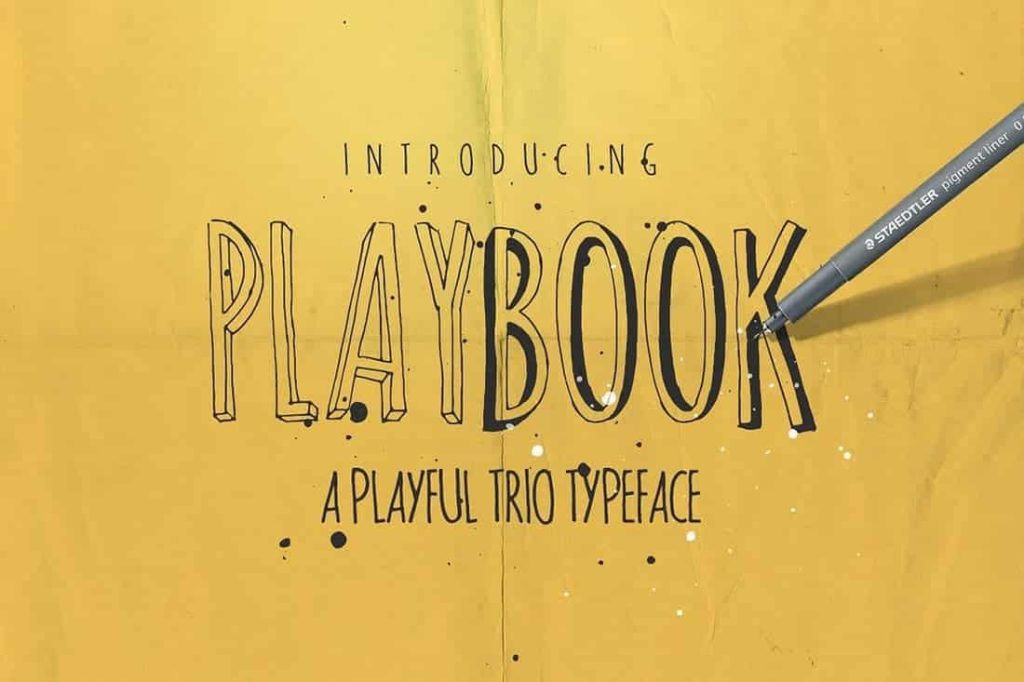
2. Zeuty Font Collection
Zeuty Typeface Collection is perfectly suited to signature, stationery, logo, typography quotes, magazine or book cover, website header, clothing, branding, packaging design, and more.
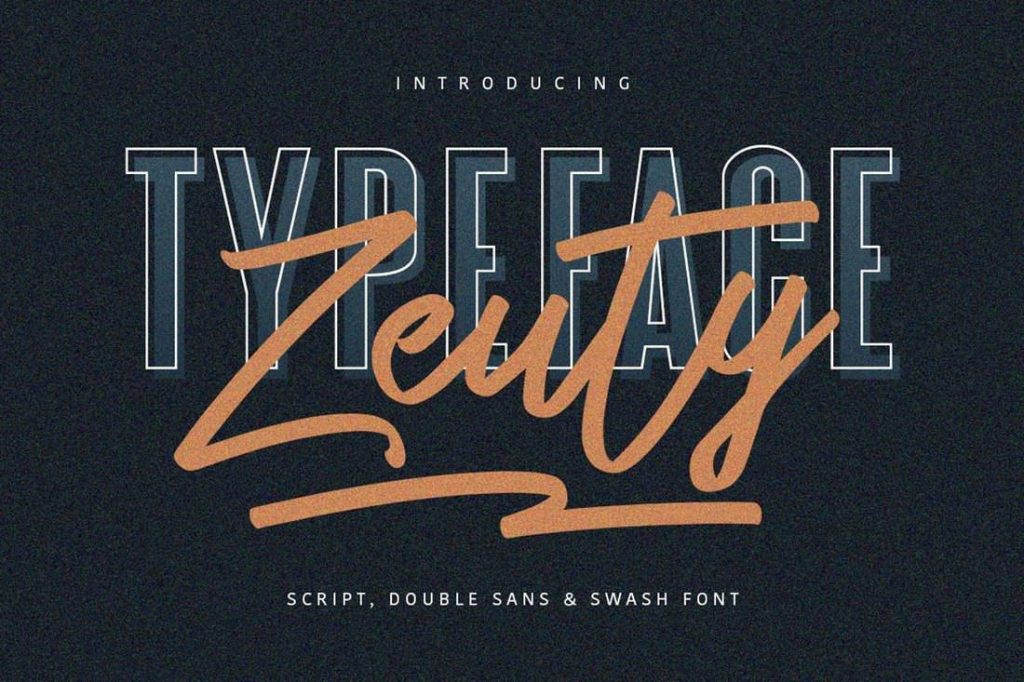
3. Pittsbrook Outline
A classic outlined typeface inspired by the letters used in old advertisements and packaging. Its rigid shape gives you strong, sharp, and blocky feelings, no curves were harmed in the making of this typeface. Suits best for any classic/vintage design project, such as E-Sport logo, liquor/food label, packaging, headline, space-filler, logotype, typographic quote writings, etc.
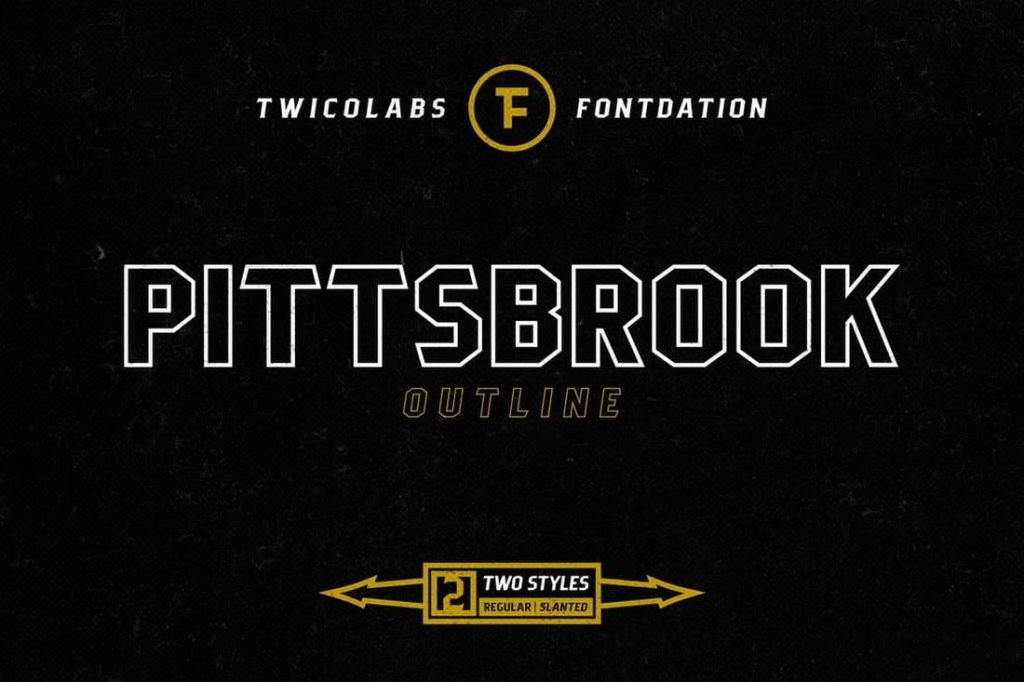
4. Nostromo Outline
Nostromo is a futuristic/science fiction typeface in several weights and styles. Nostromo includes multilingual support (basic Latin, Western European, Central European, southeastern European), numbers, and punctuation.
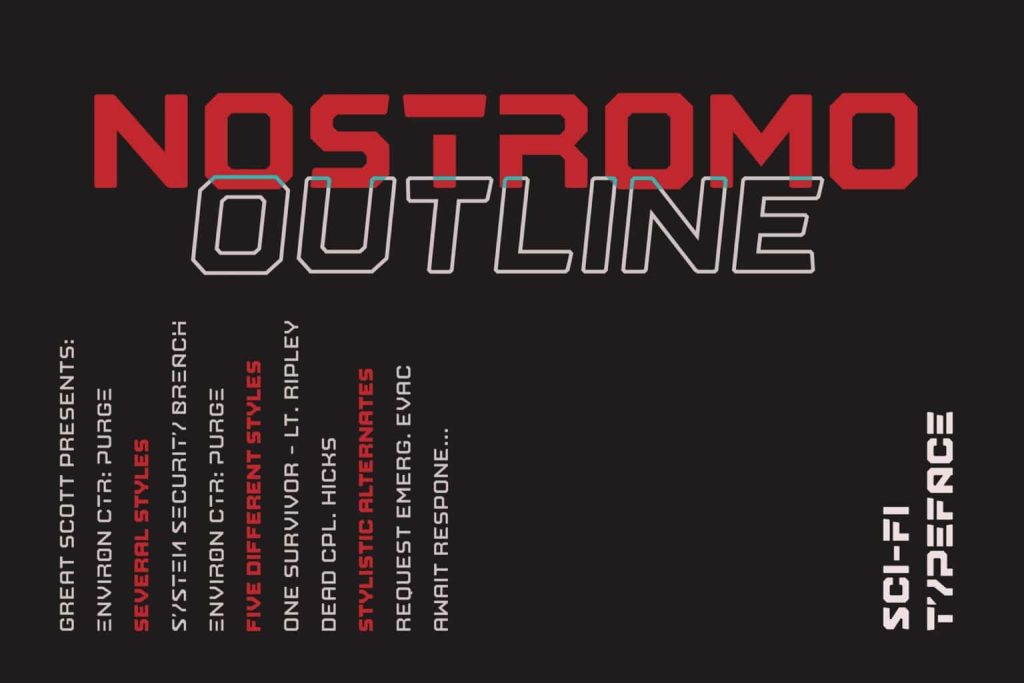
5. Polygon Technology Font
Perfect for all kinds of hi-tech, virtual reality, and artificial intelligence projects. Use it on the web or for print designs.
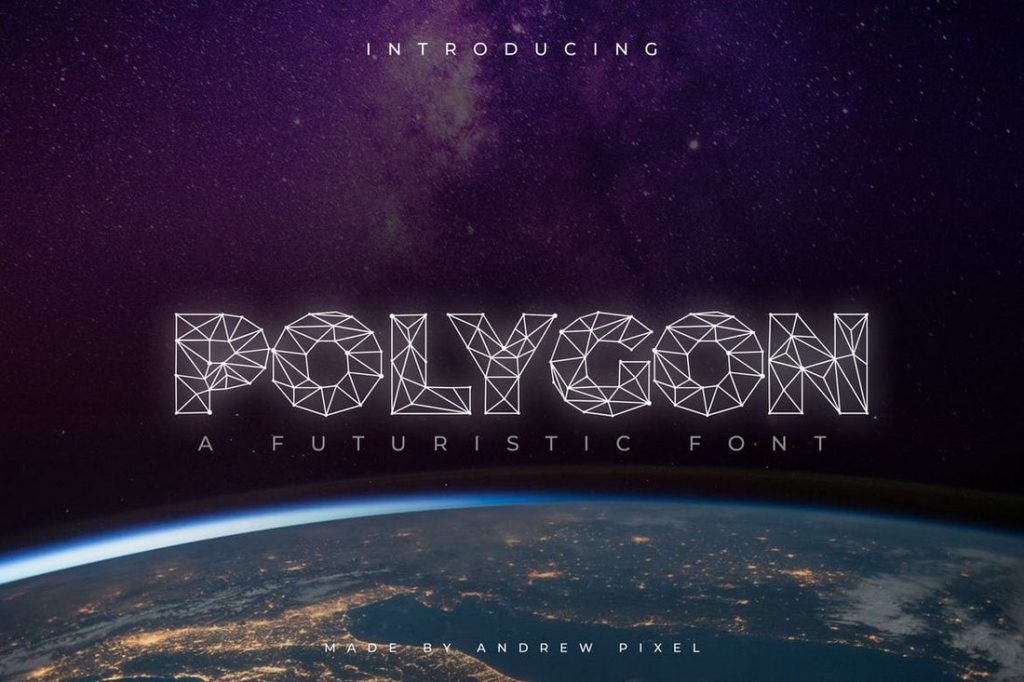
6. Fairytales Font
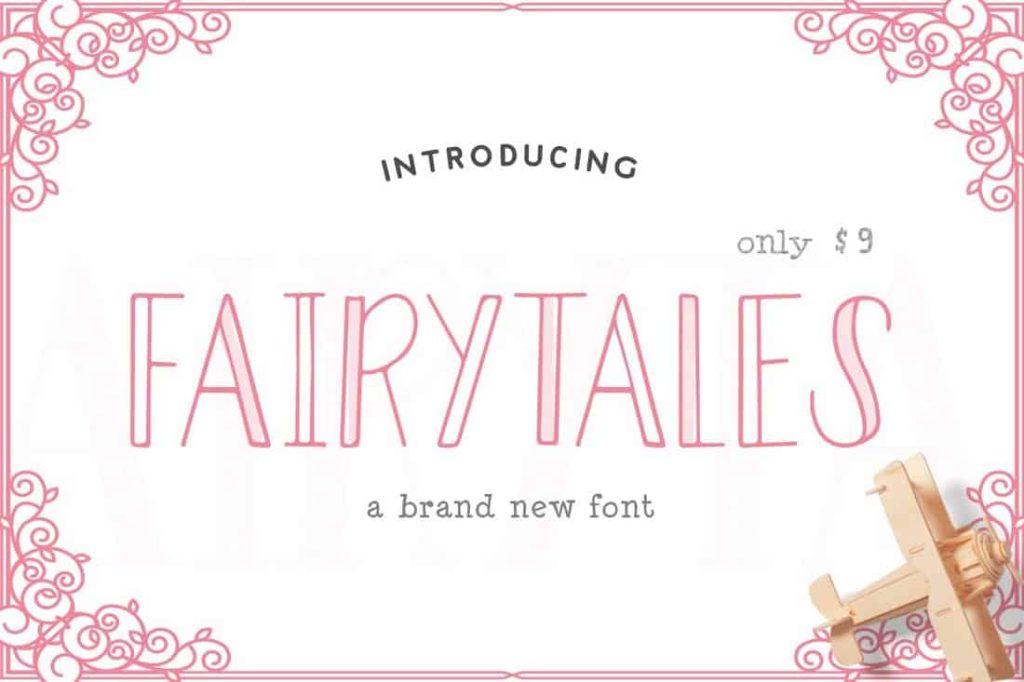
7. Exodar – Futuristic Font
EXODAR is a modern futuristic typeface with elegance in every single letter. This font looks modern, sci-fi, futuristic, future, readable, stylish, catchy, and easy to use. Exodar Font is the best choice for your professional design projects, including logo, poster design, t-shirt, headline, flyer, cd cover album, quotes, business card, branding, magazines, social media, advertisements, product designs, or something that need modern or futuristic looks.
8. Organa Caps
Organa, a stylish geometric font family. Create a new feel for your designs. Organa is a unique and creative font that can be used for logo design and branding, posters flyers, and book covers. Organa will help you to shake off the old feel and to create something new.
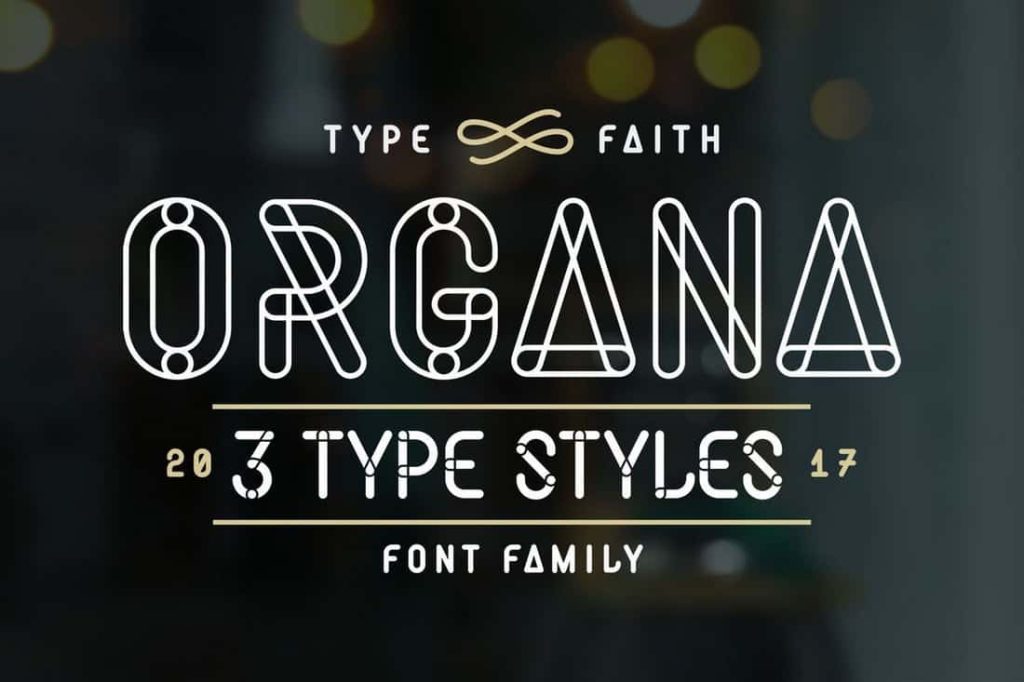
9. Tuck Shop Font
It would be perfect for children’s books and posters but it’s a fun, casual typeface and would work for any project that requires a chalk style. The font also has a set of ornaments, 77 in total. Covering everything from stars to speech bubbles it’ll have something handy for you to use.
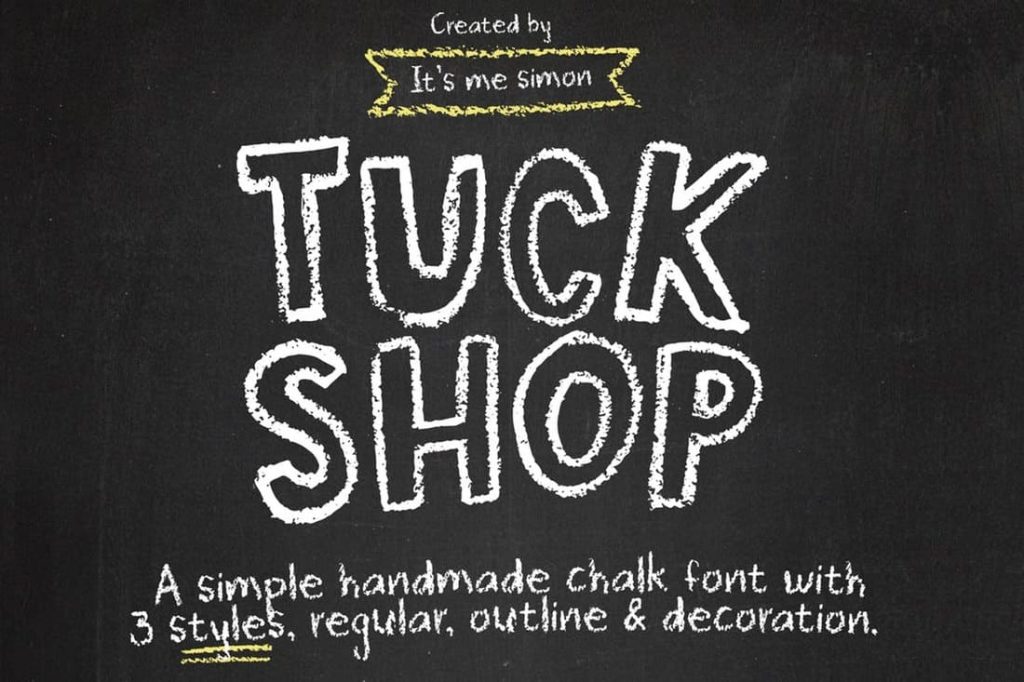
10. Legacy – Vintage Style Font
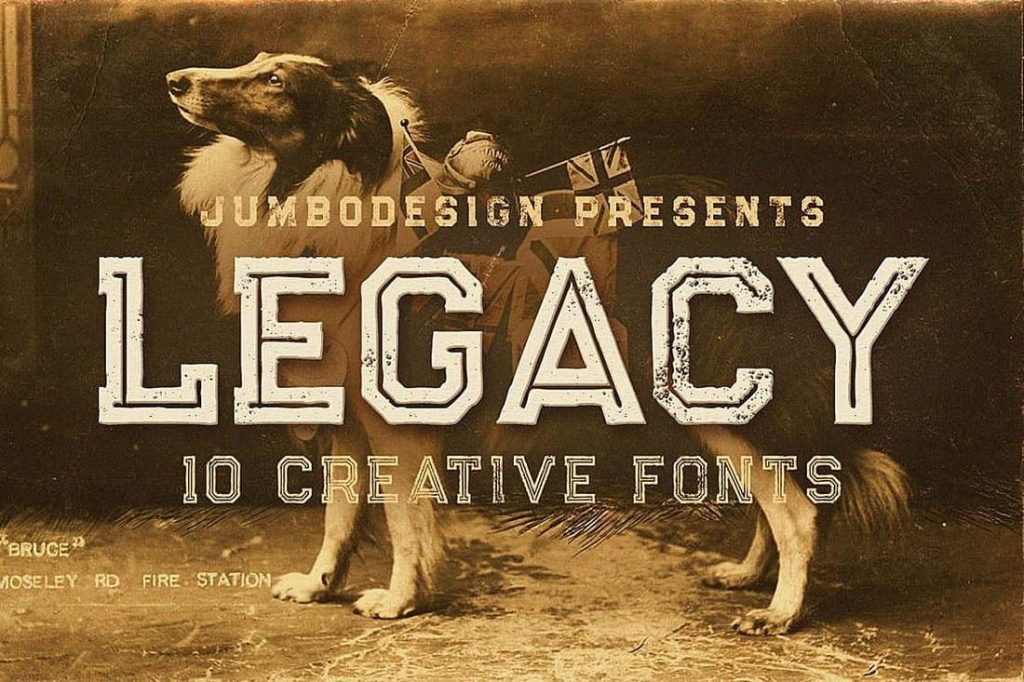
11. Robinson Outline
Robinson is a font inspired by vintage newspaper titles. It’s great for having a bold and attractive title followed by smaller text. It was made specifically with magazines and posters in mind. This one works really well in neon colors.
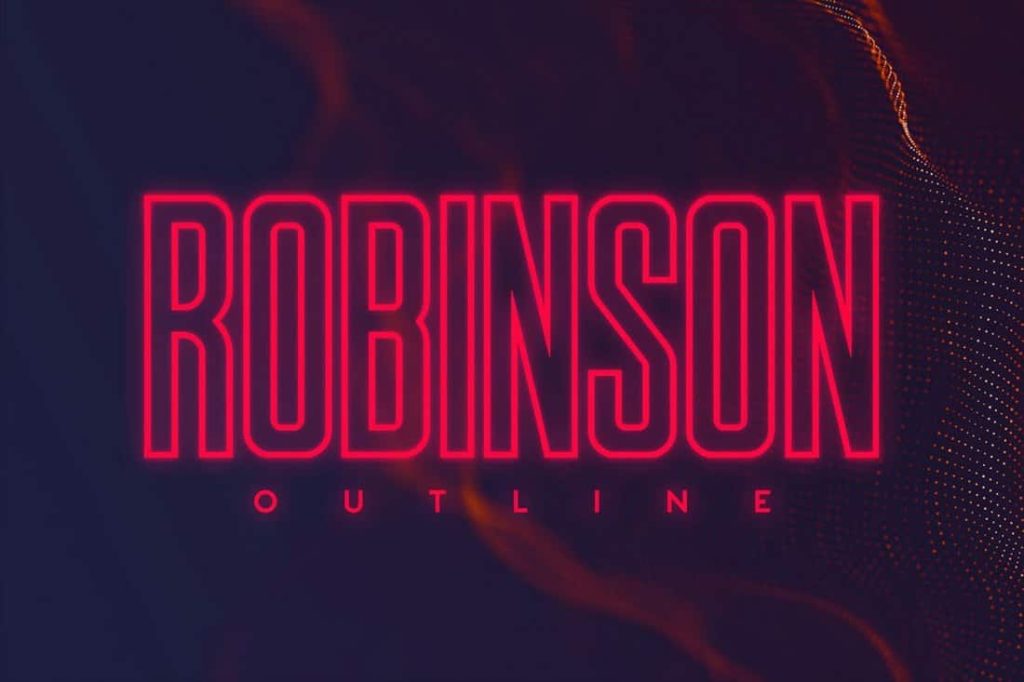
12. Freeline Font
Freeline is a fashion stylish creative font that can be used as logo design and branding, titles & headers, posters & banners in such areas as fashion, high-tech, internet & computers, business innovations, etc.